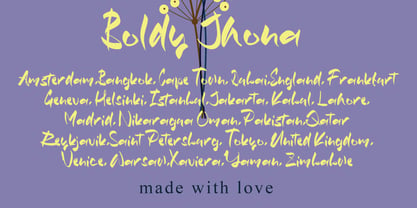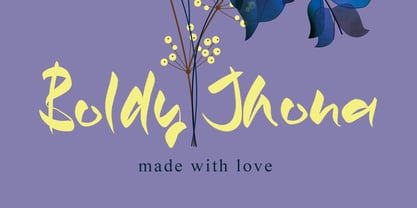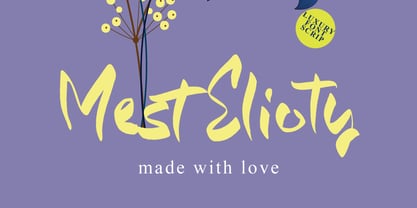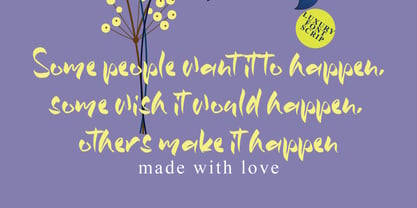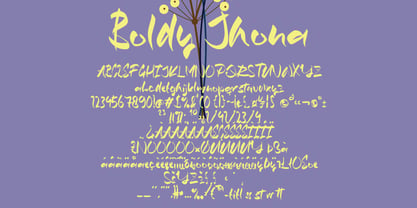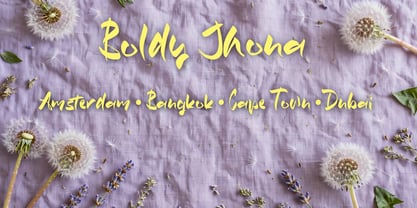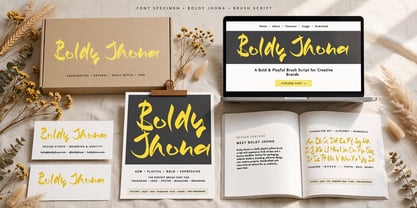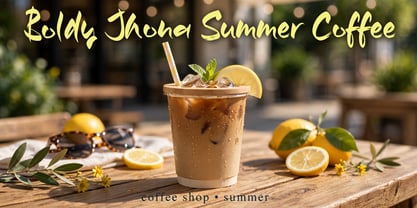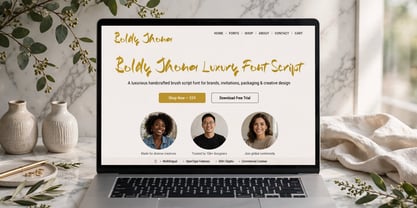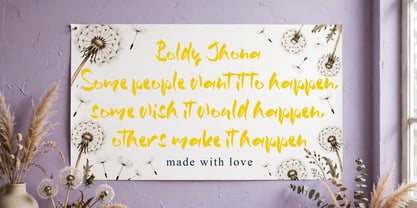
Boldy Jhona
by Ayska
The Boldy Jhona Font Family was designed by Dhoni Trihatmoko and published by Ayska. Boldy Jhona contains 1 styles. More about this family
Step into the charming allure of Boldy Jhona, a standout font that's rich in modern sophistication while still retaining a touch of handwritten grace. Crafted by hand, Boldy Jhona emanates a unique and refined charisma, becoming your ideal companion on every digital crafting journey. Flexible in its elegance, use its distinctive charm to captivate blog readers, infuse exclusivity into your digital planner layouts, embed personality into your invitations, or communicate heartfelt sentiments in your handmade greeting cards. Delight in the timeless charm and creativity of Boldy Jhona when enriching memory-filled photo albums or customizing decorations. Its commanding allure transforms ordinary digital visuals into striking, captivating pieces of art. Allow Boldy Jhona to be the commanding force in your creative voyage, orchestrating a breathtaking array of memorable imprints. Immerse yourself in the artistic brilliance of Boldy Jhona, and watch your creative visions evolve into distinct pieces of art.
Designers: Dhoni Trihatmoko
Foundry: Ayska